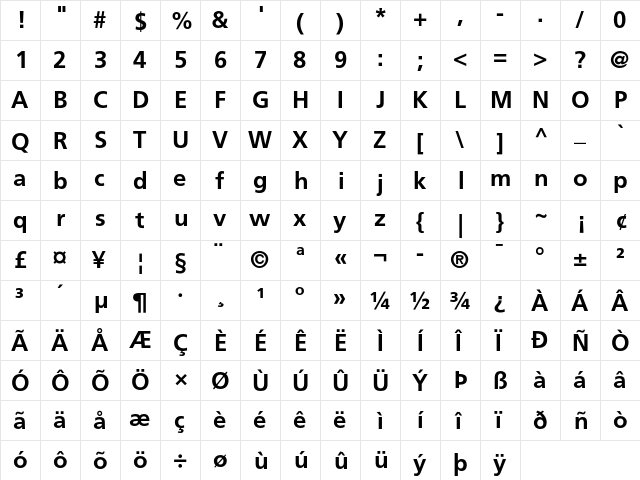
Frutiger 65 Bold
Design Context for Frutiger Typeface
Frutiger takes a measured approach to typography — its balanced proportions and neutral character make it a reliable workhorse for both digital and print work. The heavy weight commands attention and anchors typographic hierarchies.
Pro Tip: Pair Frutiger with a font of contrasting weight or personality to build a more expressive typographic hierarchy.